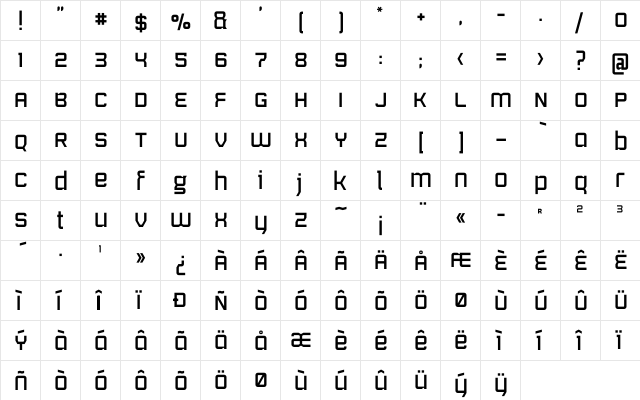
mrh Anton Alt. Regular
| Designer | Mads Rahbek Hougaard |
Design Context for mrh Anton Alt. Typeface
mrh Anton Alt. takes a measured approach to typography — its balanced proportions and neutral character make it a reliable workhorse for both digital and print work.